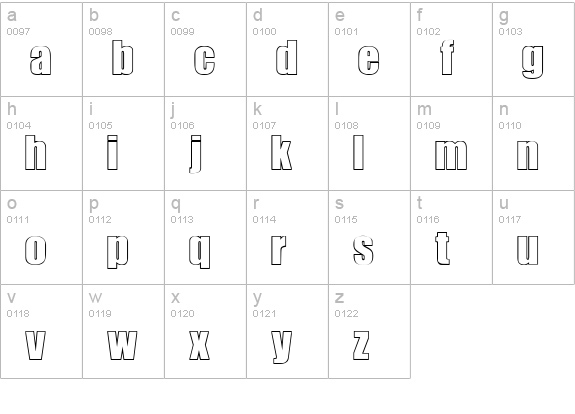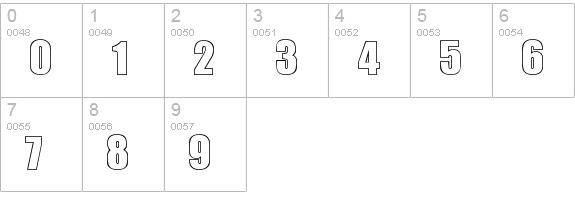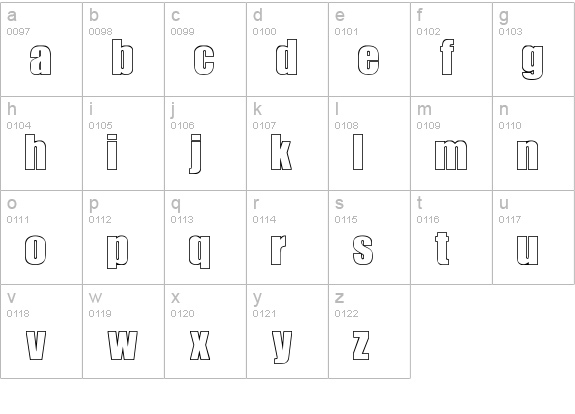
le mans Font Details
Le Mans font is an exquisite typeface that embodies elegance and sophistication. Its sleek and modern design captures the essence of speed and precision, making it the perfect choice for any project that requires a touch of finesse. The clean lines and smooth curves of each letter create a harmonious flow, ensuring readability and visual appeal. This font is not only visually stunning but also highly versatile, allowing it to be used in a wide range of applications, from branding and logos to headlines and body text. Its timeless design ensures that it will never go out of style, making it a valuable addition to any designer's toolkit. One of the best things about Le Mans font is that it is available for free. Yes, you read that right - this exceptional font can be downloaded at no cost from FontsMarket.com. This means that you can add a touch of sophistication to your designs without breaking the bank. Whether you are a professional designer or a hobbyist, Le Mans font is a must-have. Its seamless integration into any design project will elevate your work to new heights. So why wait? Head over to FontsMarket.com and download Le Mans font for free today.